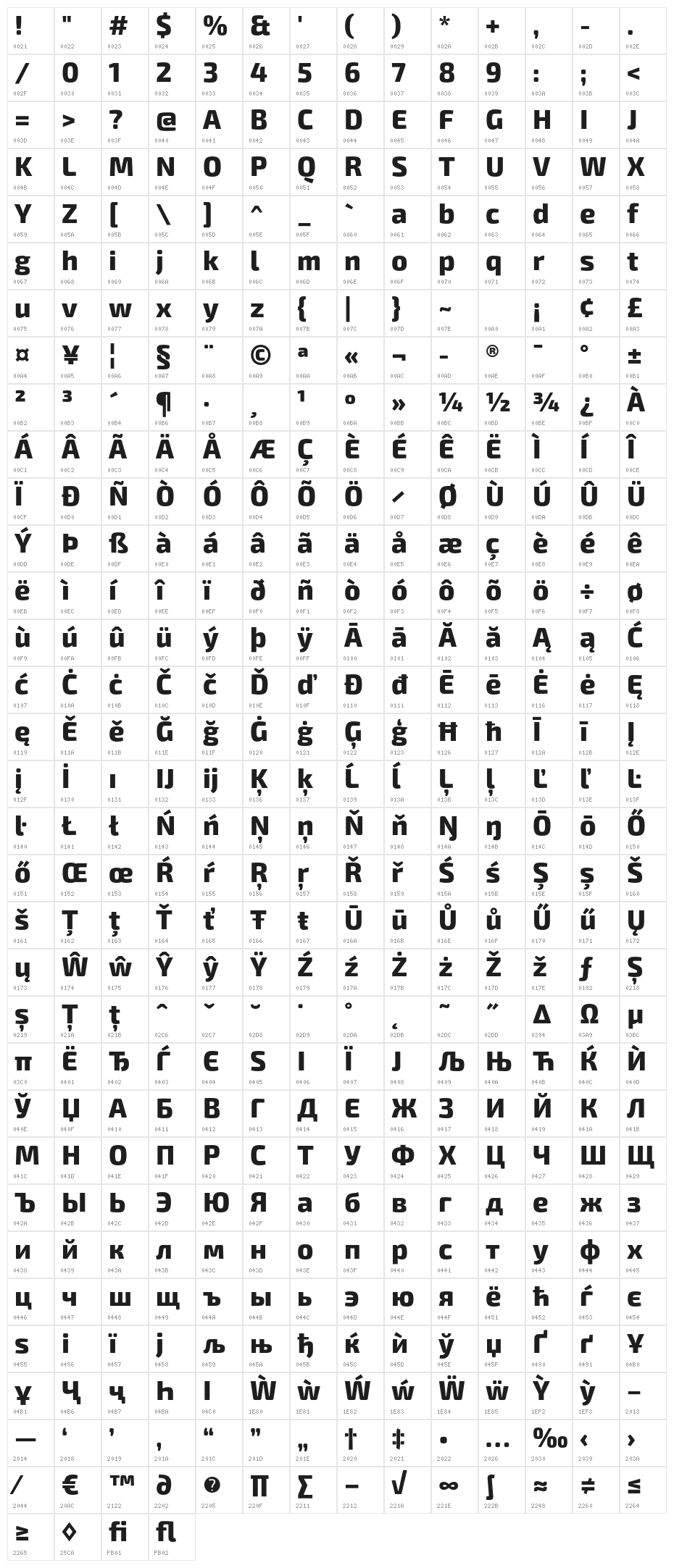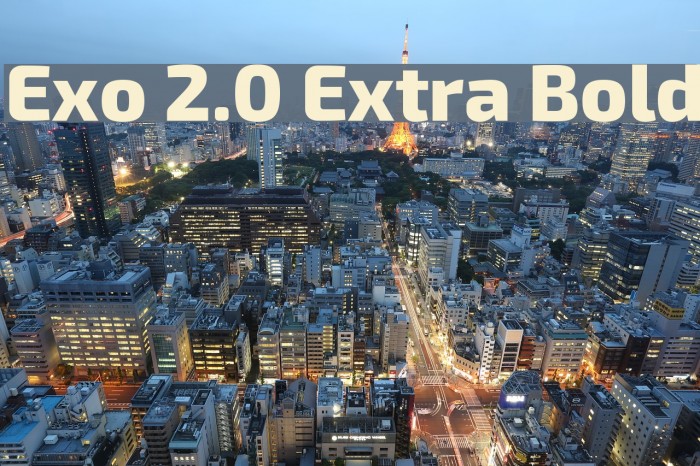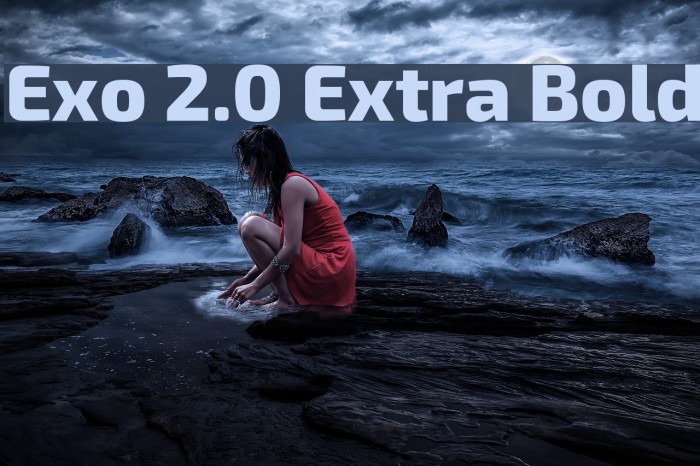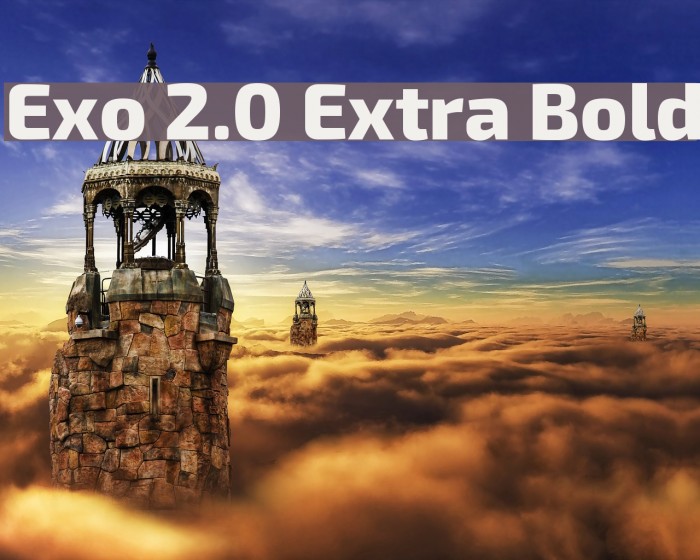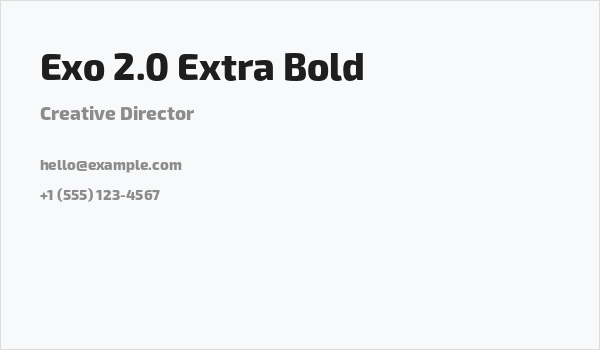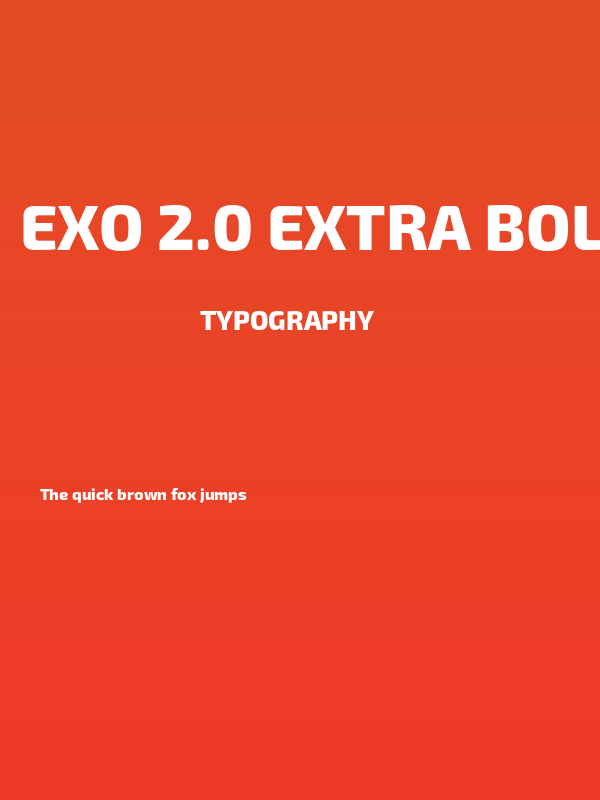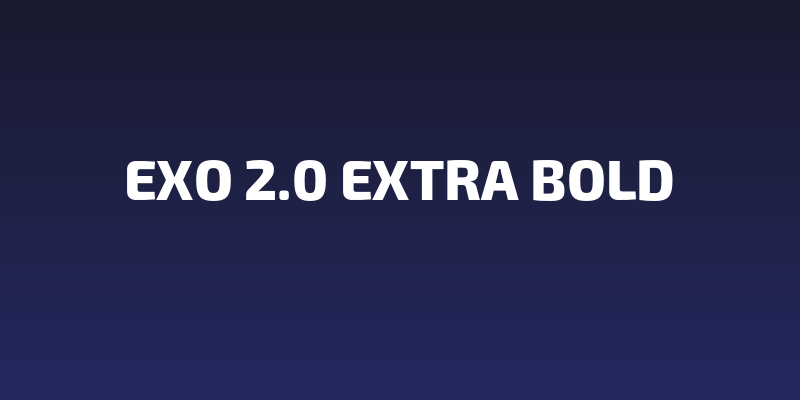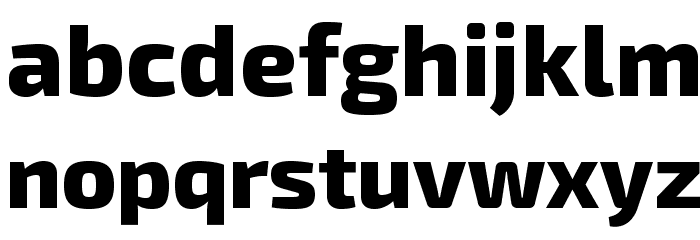
Exo 2.0 Extra Bold Font
Exo 2.0 Extra Bold Description
This typeface presents a bold and modern aesthetic with a strong geometric influence. The characters are well-defined with a uniform stroke width, providing a clean and structured appearance. The uppercase letters are particularly striking, featuring sharp angles and a robust presence. The lowercase letters maintain a consistent style, complementing the uppercase with rounded edges that soften the overall look. The numerals are clear and legible, making them suitable for a variety of applications. Special characters are included, maintaining the font's cohesive design. This font is versatile, suitable for both digital and print media, and can be used to create impactful headlines and titles.
| Proposed Projects | Ideal for branding, advertising, digital media, and print design projects requiring a strong visual impact. |